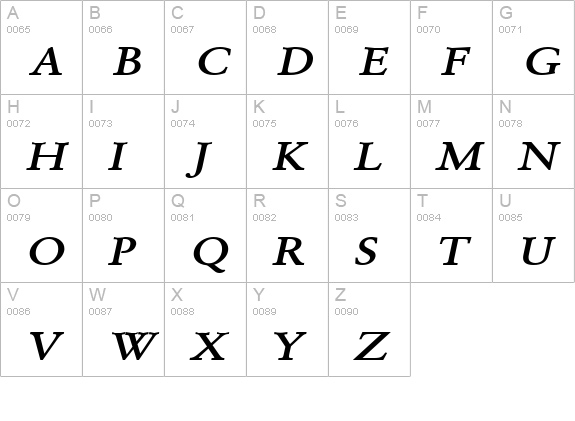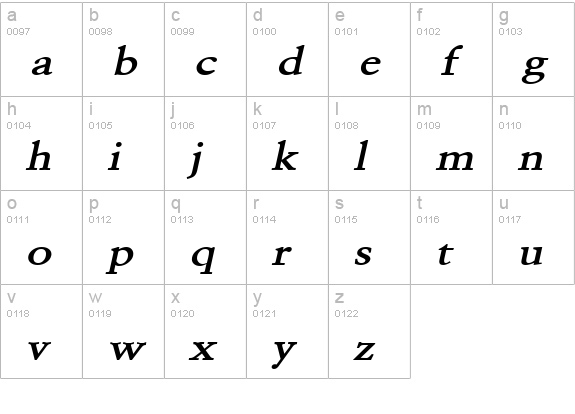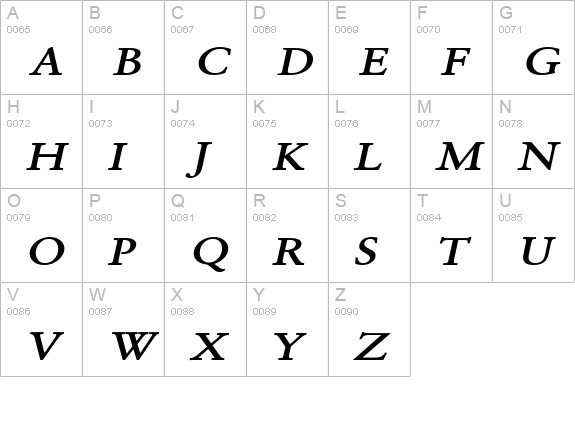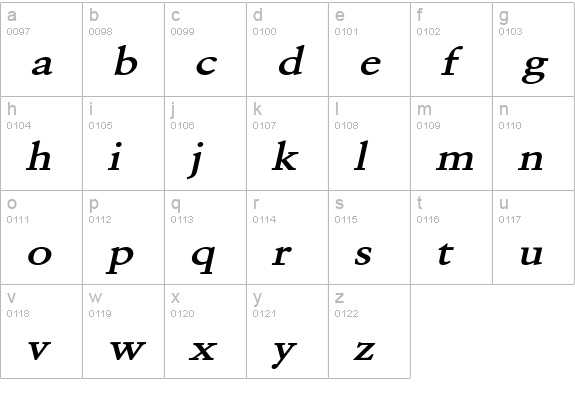
Garrick Wide BoldItalic Font Details
Garrick Wide BoldItalic is a distinctive, extended-width variant in the Garrick typeface family \xE2\x80\x94 well suited to design and typography projects.
Introducing Garrick Wide BoldItalic font, a sleek and modern typeface that effortlessly combines boldness with elegance. This versatile font is perfect for making a statement in headlines, titles, and various design projects. The striking italicized characters add a touch of sophistication to any text, making it stand out effortlessly. What sets Garrick Wide BoldItalic font apart is not only its stylish design but also its accessibility - it is available for free download at FontsMarket.com. This means that you can elevate your designs without any added cost, making it a valuable addition to your font collection. Whether you're working on branding, advertising, or creative projects, Garrick Wide BoldItalic font is sure to make a lasting impression. Download it today and see the difference it can make in your designs.